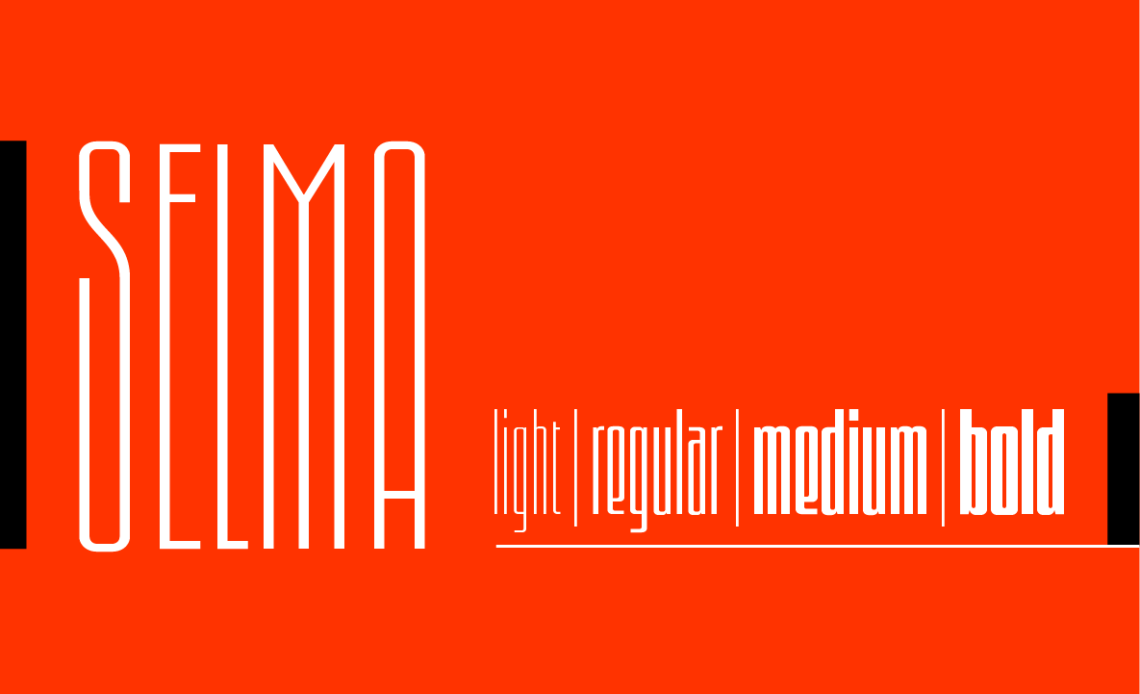
Feast your eyes upon Selma Font, the epitome of elegance and personality. This captivating sans serif font family, masterfully crafted by Cort9, exudes a captivating vertical emphasis that dances across the screen with grace and allure.
Selma's distinctive design boasts extremely condensed forms, adorned with bars strategically placed at the ends of its rods. This enchanting touch infuses your designs with a dash of whimsy and sophistication, effortlessly elevating your creations to new heights.
With a stature that commands attention, Selma's x-height accentuation radiates strength and magnetism. Whether you seek to craft captivating headlines, alluring posters, or eye-catching logos, Selma's towering presence ensures your message will resonate with power and impact. Its versatility extends to both short texts and grand displays, making it the perfect choice for a myriad of design endeavors.
Imagine the possibilities that await you with Selma Font. Its charming personality will weave a spell of enchantment into your designs, leaving an unforgettable mark on all who behold its beauty. Unleash your creativity and let Selma guide you towards a realm of typographic excellence.